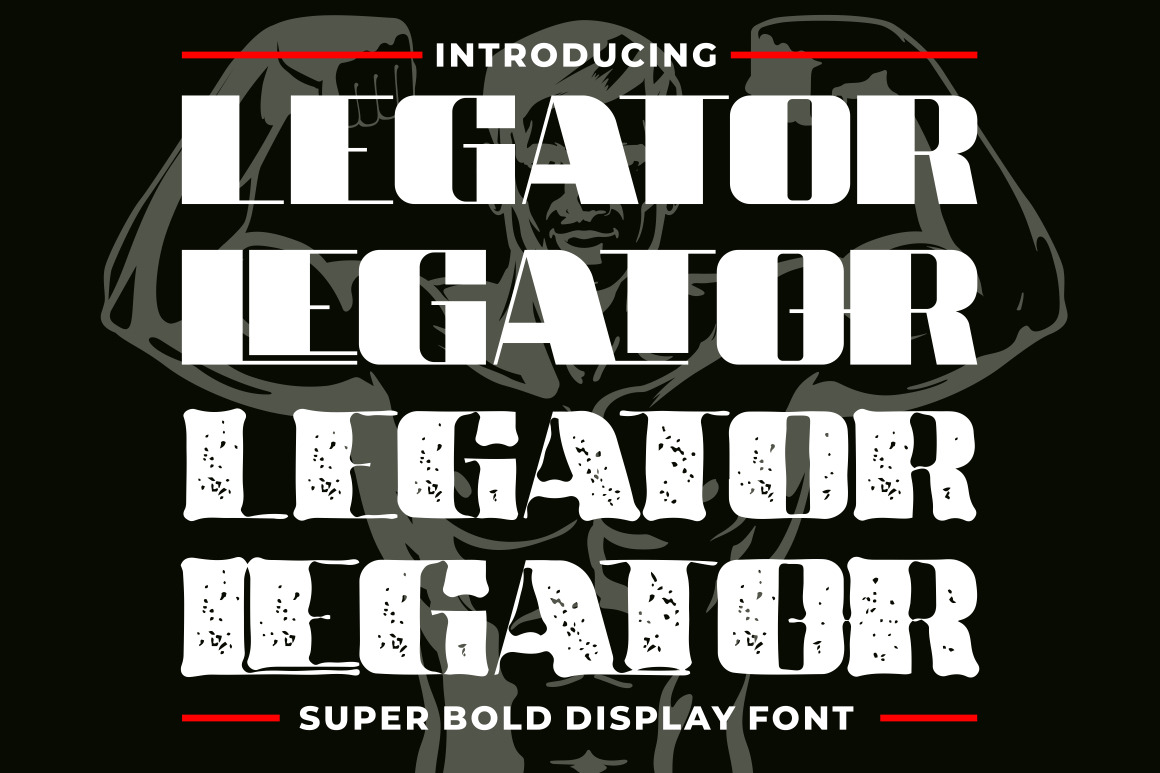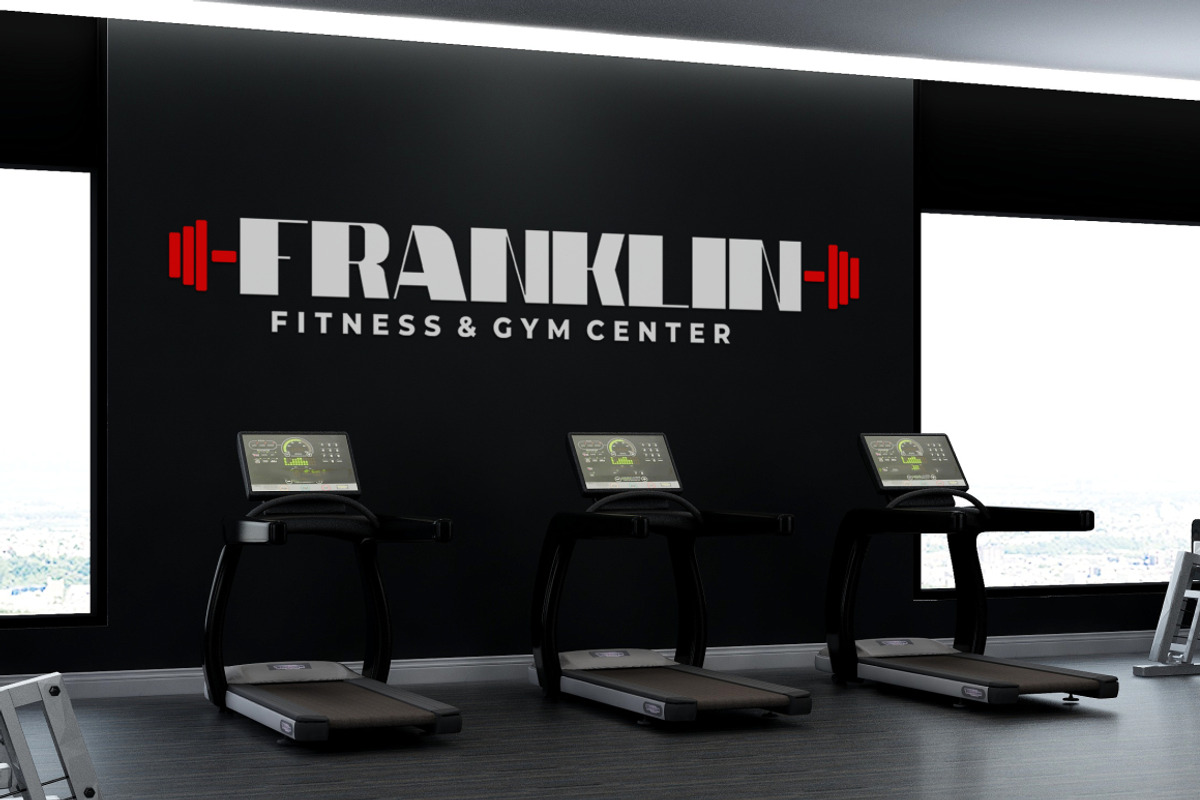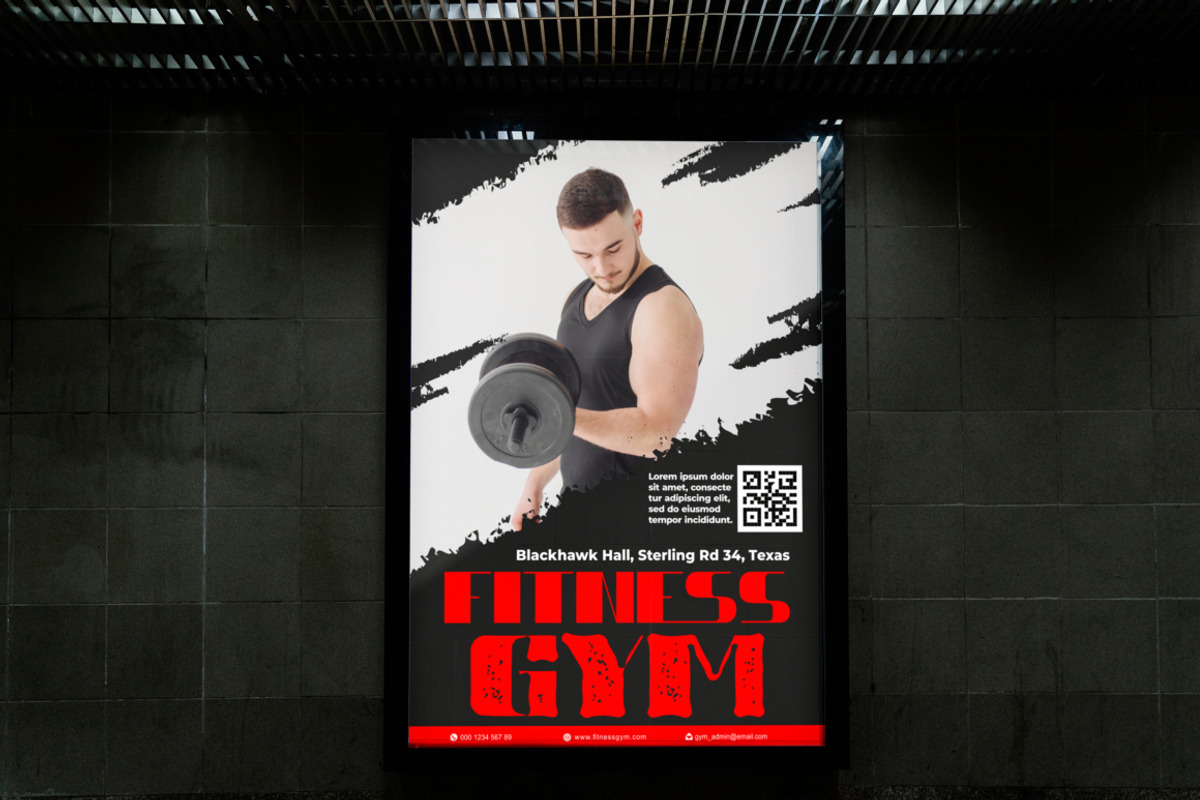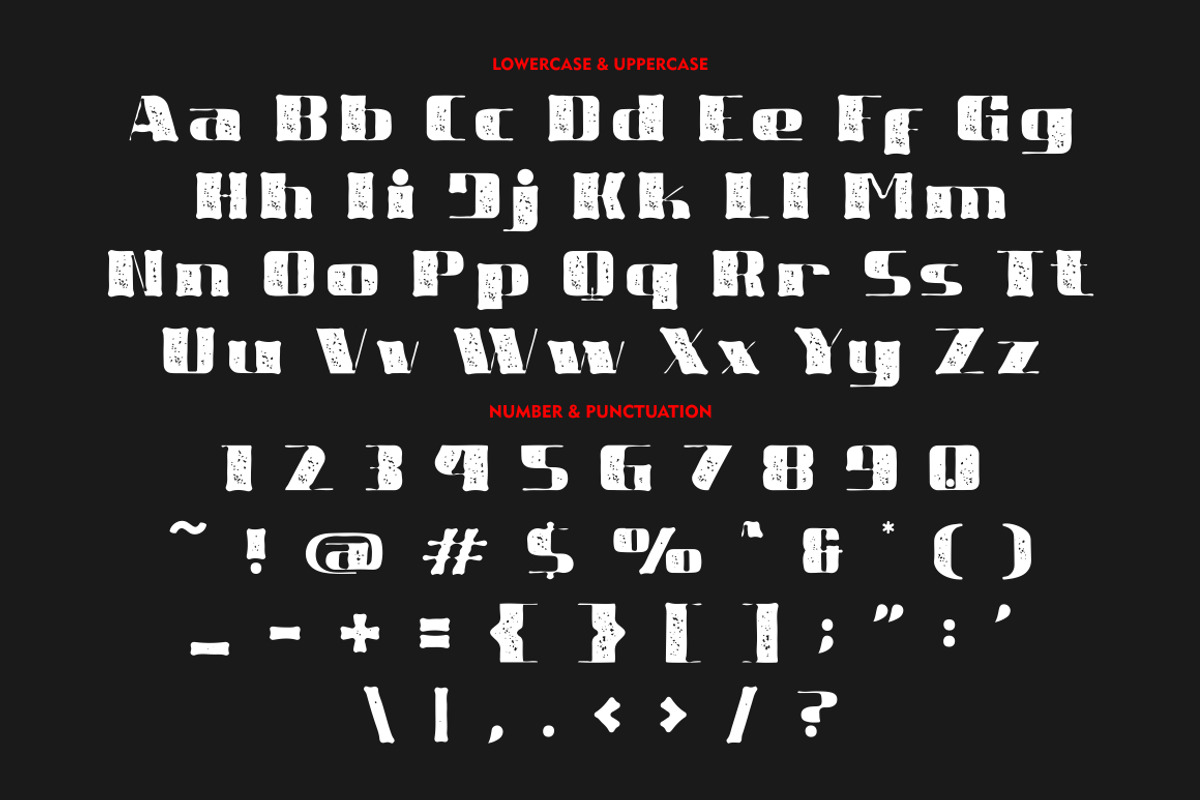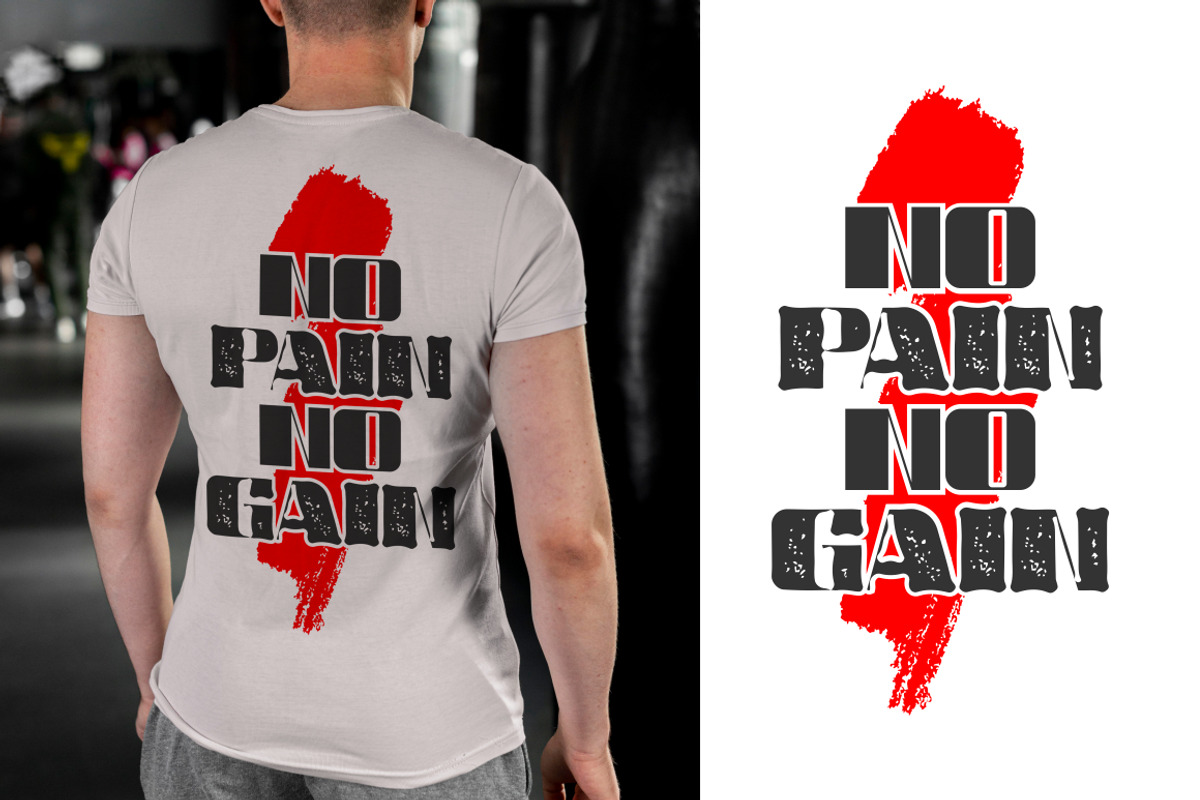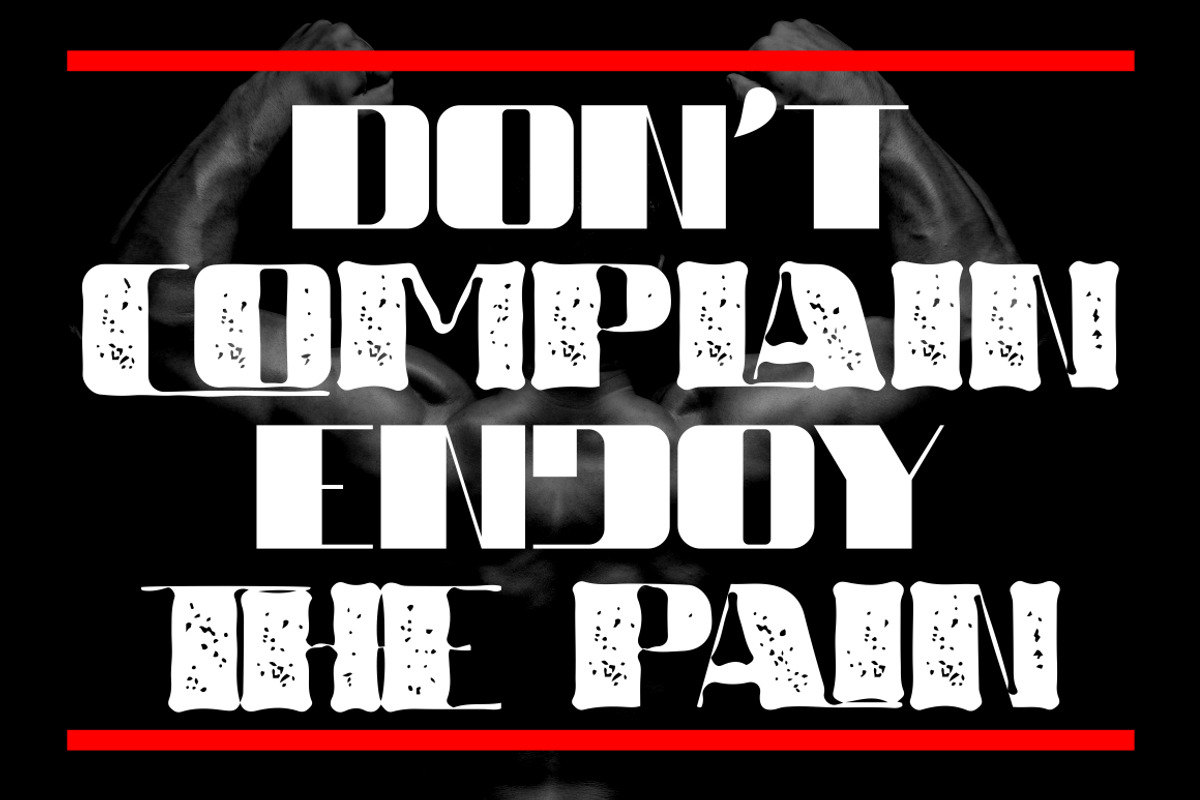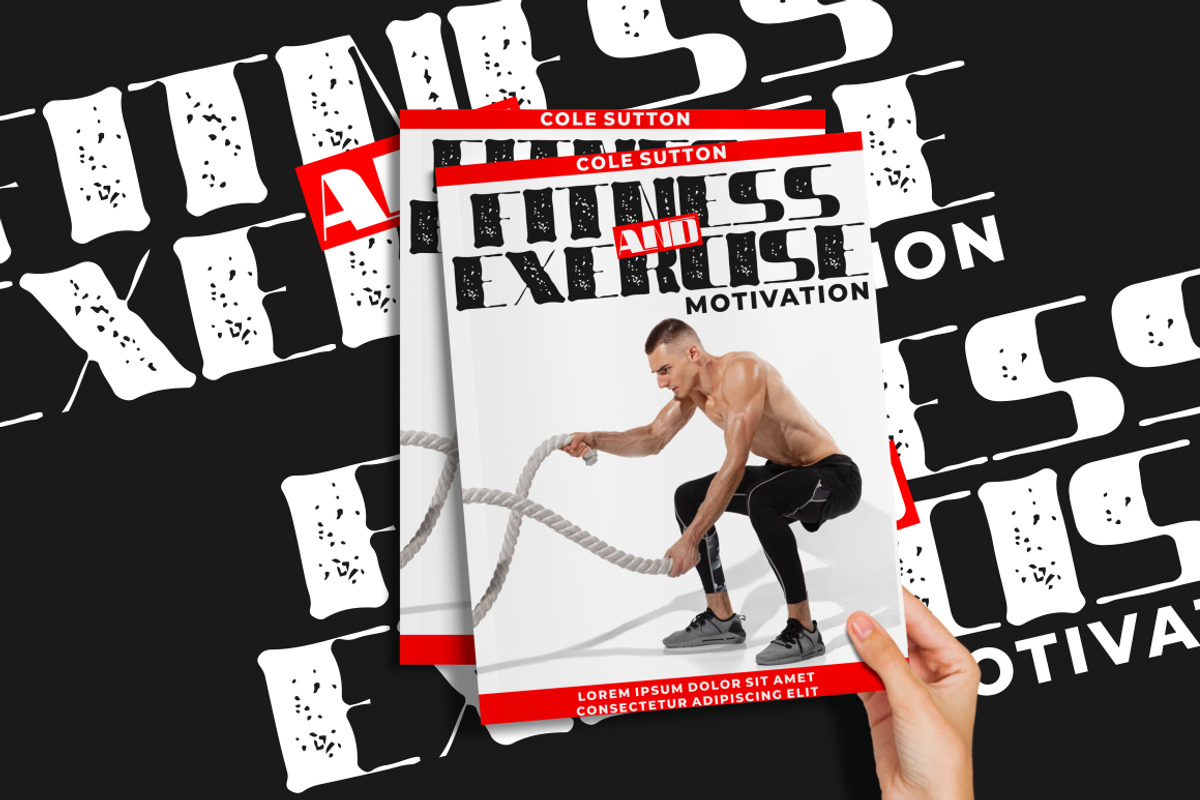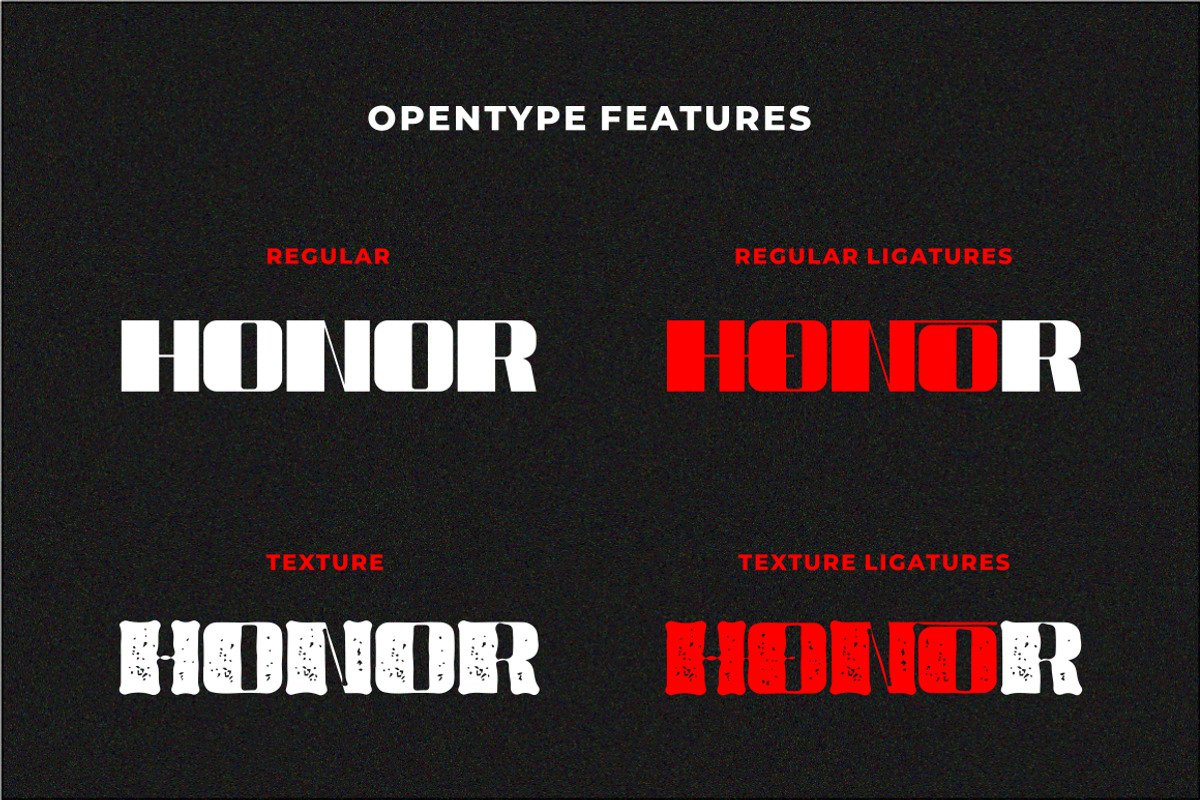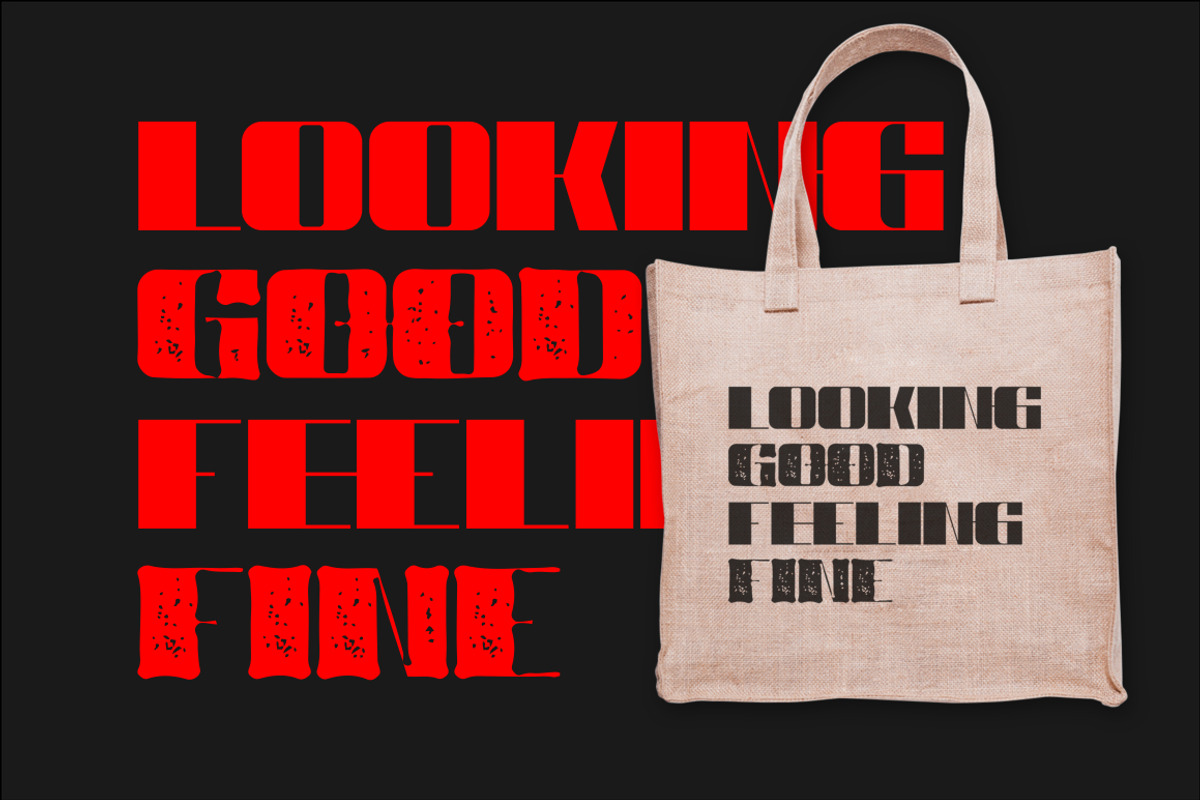
Legator - Super Bold Display Font
Legator - Super Bold Display Font. Legator a super bold, quirky display font with a fun and trendy characters. With a sporty style, it will be very suitable for your project, which is related to sport display.
Such as story books, illustrations, comic books, t-shirts, posters, greeting cards, logos, branding, stickers, svg, crafting.
The alternative characters were divided into several Open Type features such as Swash, Stylistic Sets, Stylistic Alternates, Contextual Alternates, and Ligature. The Open Type features can be accessed by using Open Type savvy programs such as Adobe Illustrator, Adobe InDesign, Adobe Photoshop Corel Draw X version, And Microsoft Word. Legator is also support multi language.
Comes with feature :
- Opentype (Alternates And Ligatures)
- Number, Punctuation And Symbols
- Multilanguage Support.